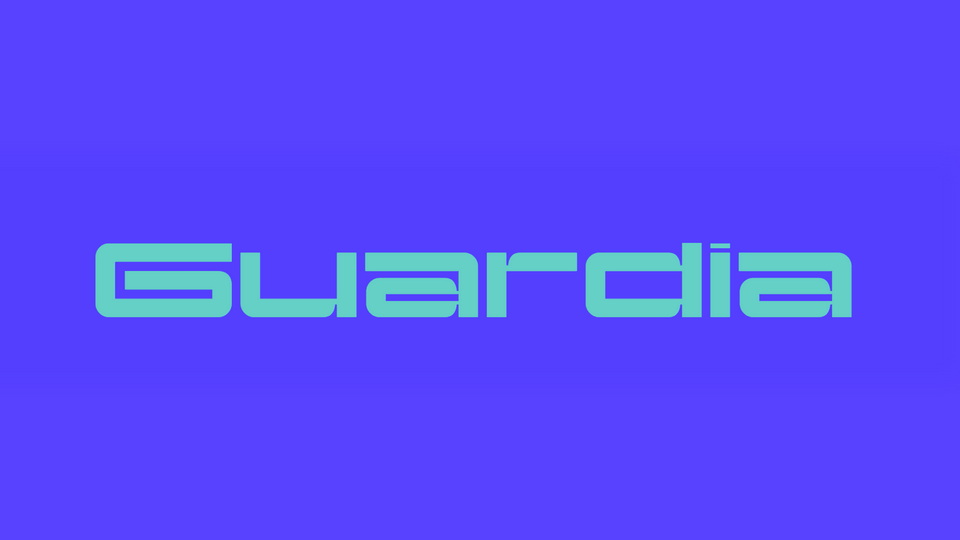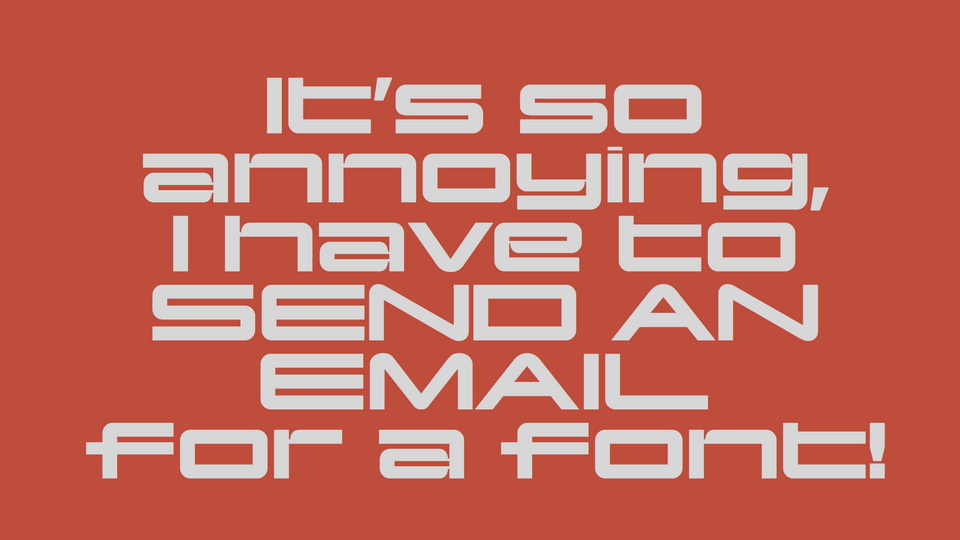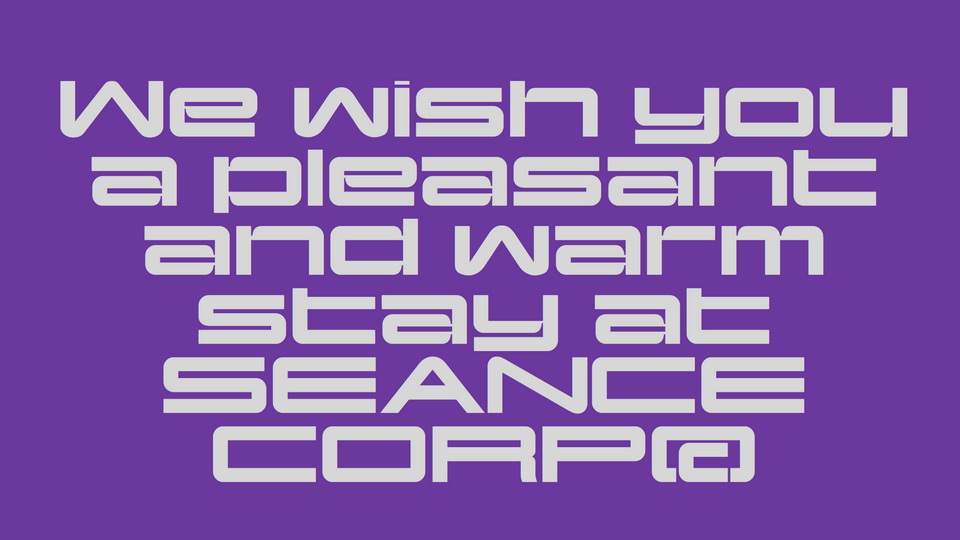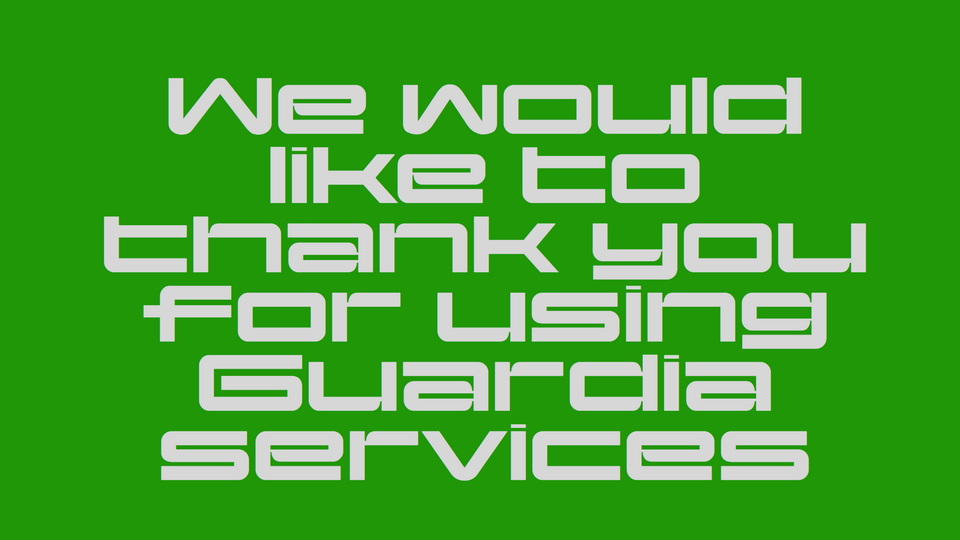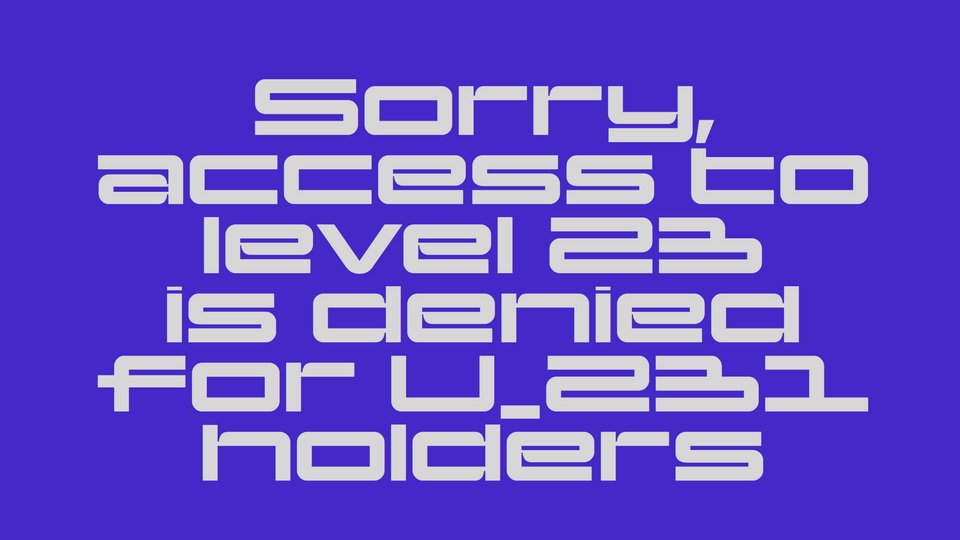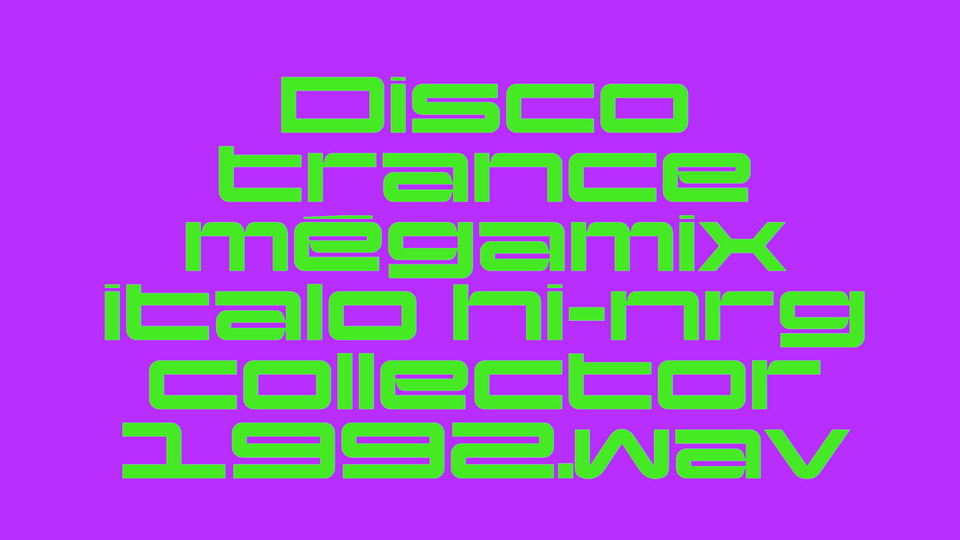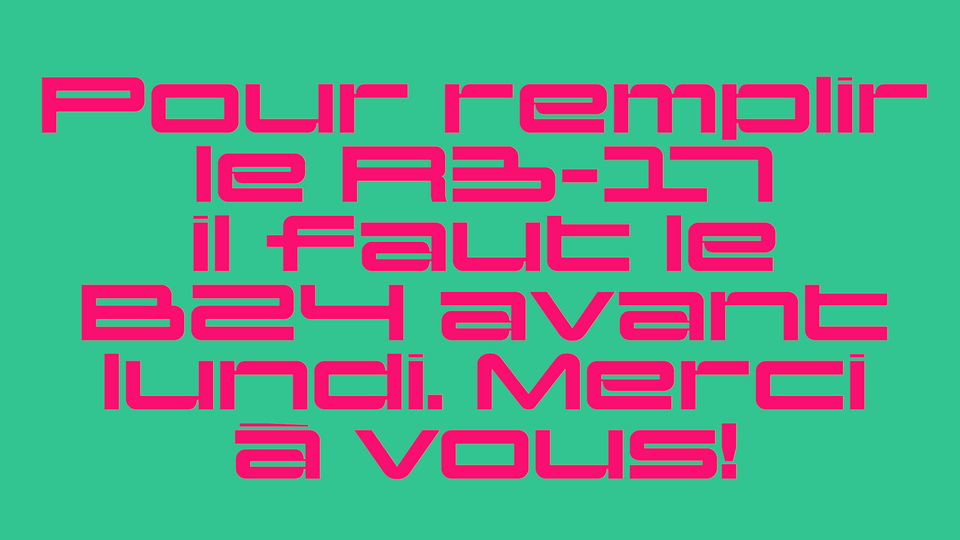
Guardia is a typeface inspired by the logotype of the Spanish National Police. Making this typeface is embedded in the author’s interest in researching the typographic imaginary; on how we can understand type as a technical and ideological tool influencing social and cultural conditions, particularly through the links between cultural geography and the graphic design fields.
In that sense, Guardia is interesting to us because it is—in our opinion—deeply rooted in a 1980–90s graphic design aesthetic inspired by police forces as depicted in blockbusters movies such as 1993’s Demolition Man or 1987’s RoboCop.
We can perhaps assume that the designers in charge of the visual identity of the Spanish National Police were therefore aware that they were reflecting a science-fiction vernacular aesthetic in the graphic design of the Cuerpo Nacional de Policía, present all over Spain.